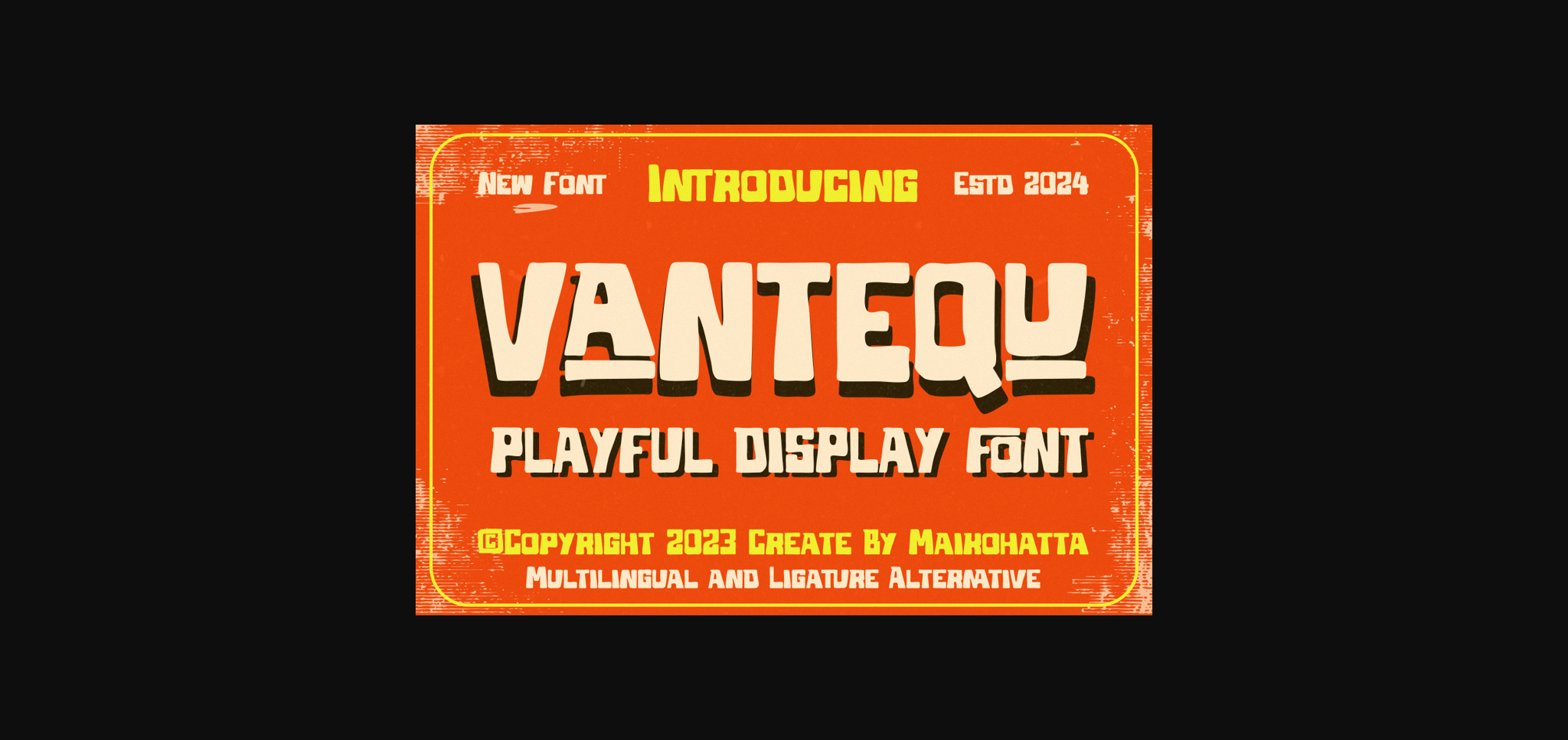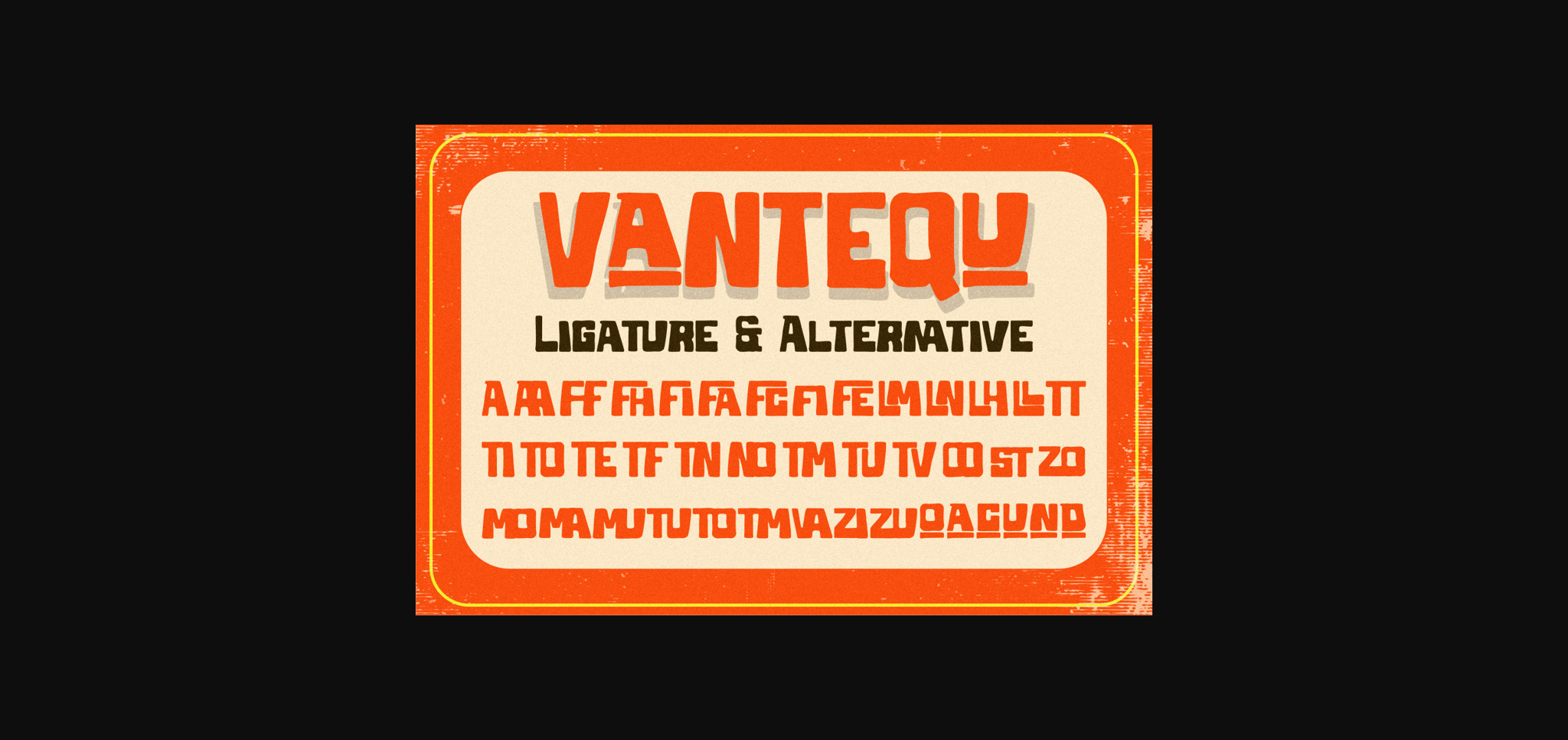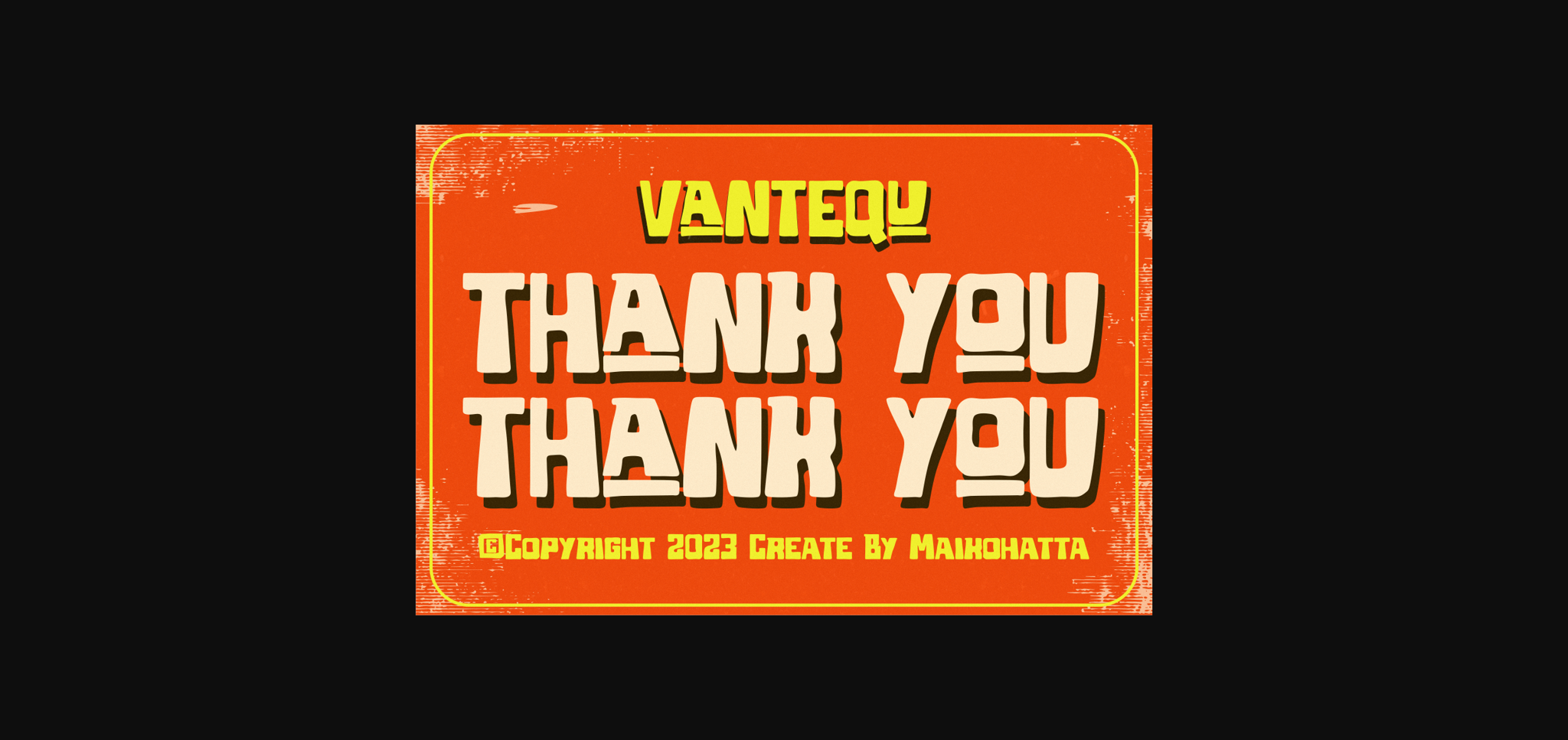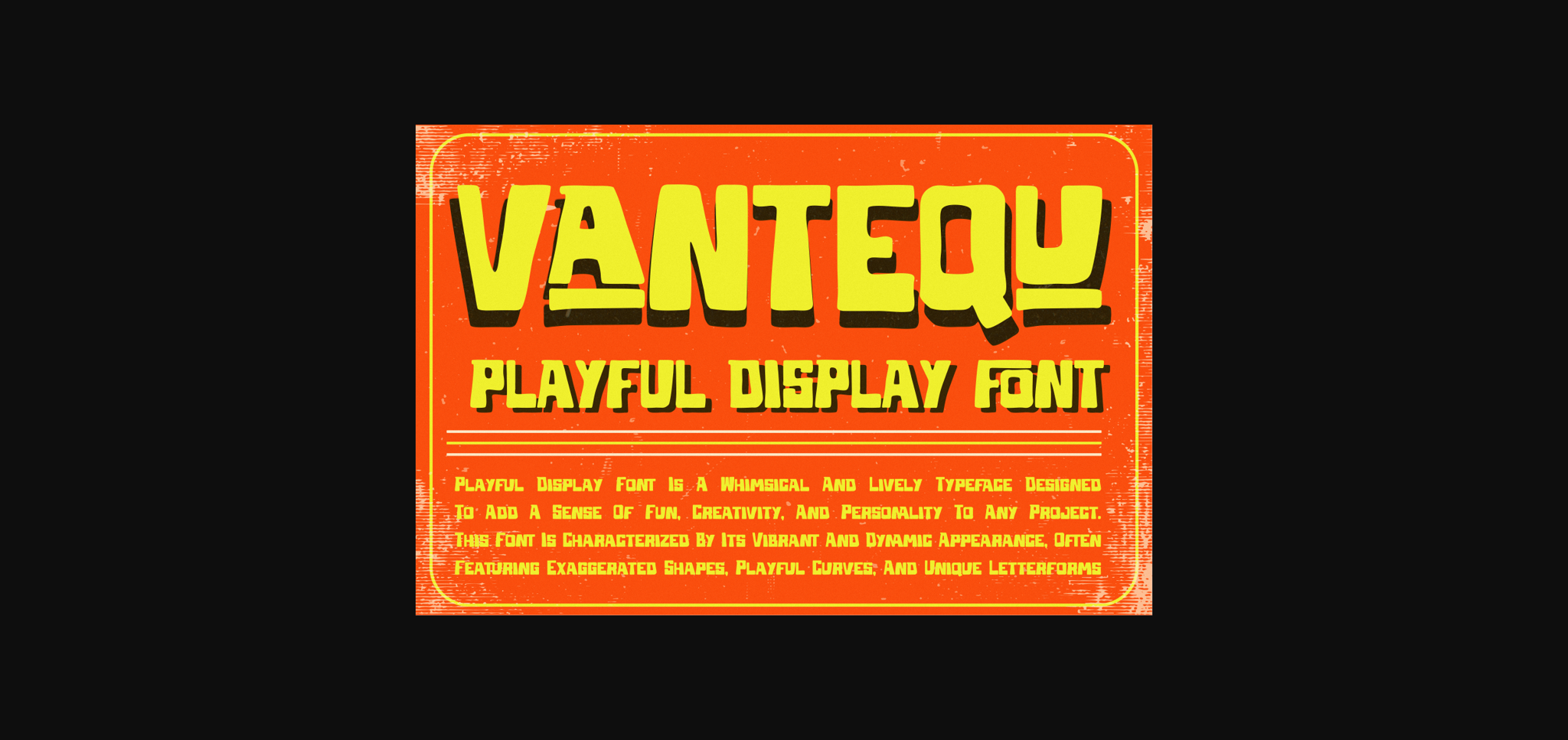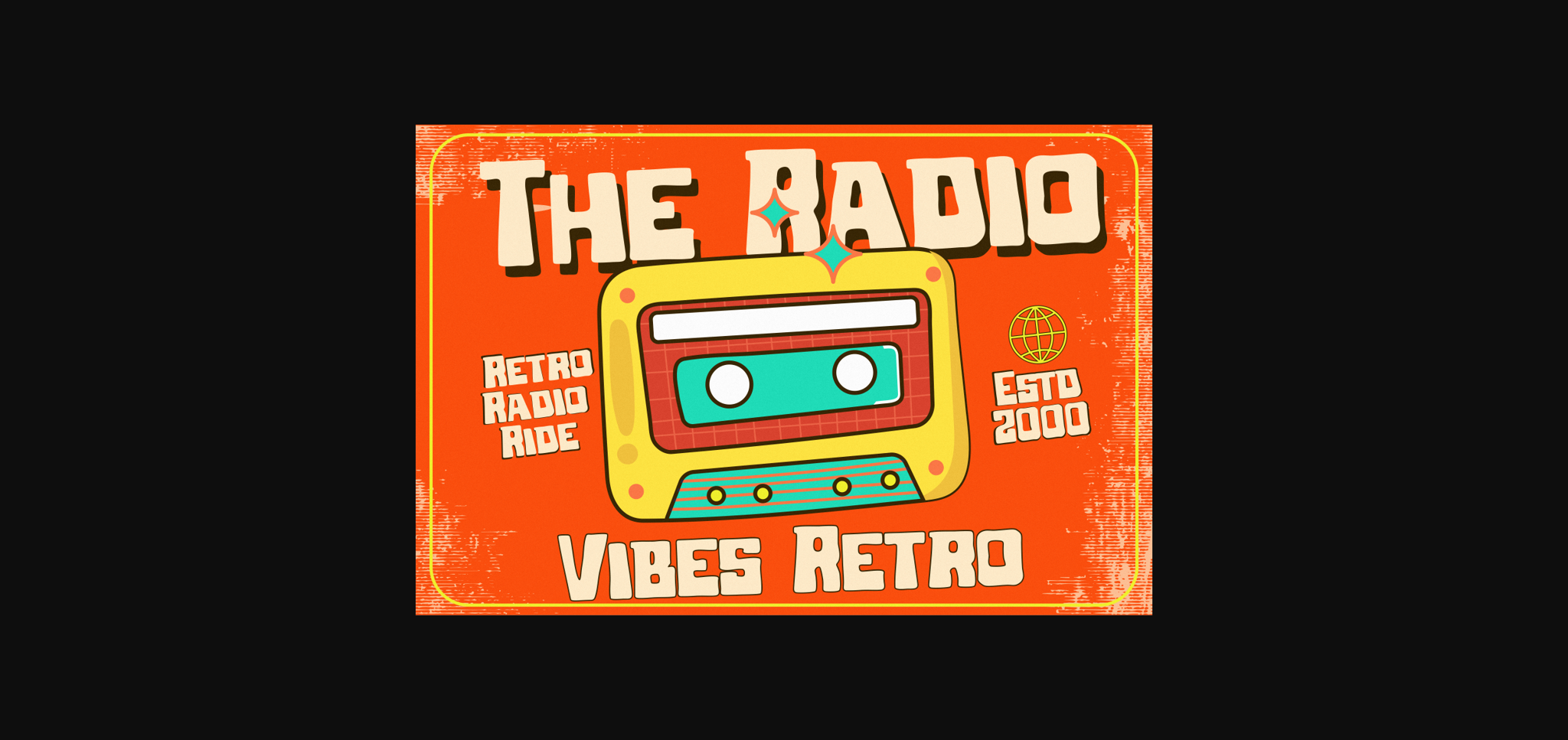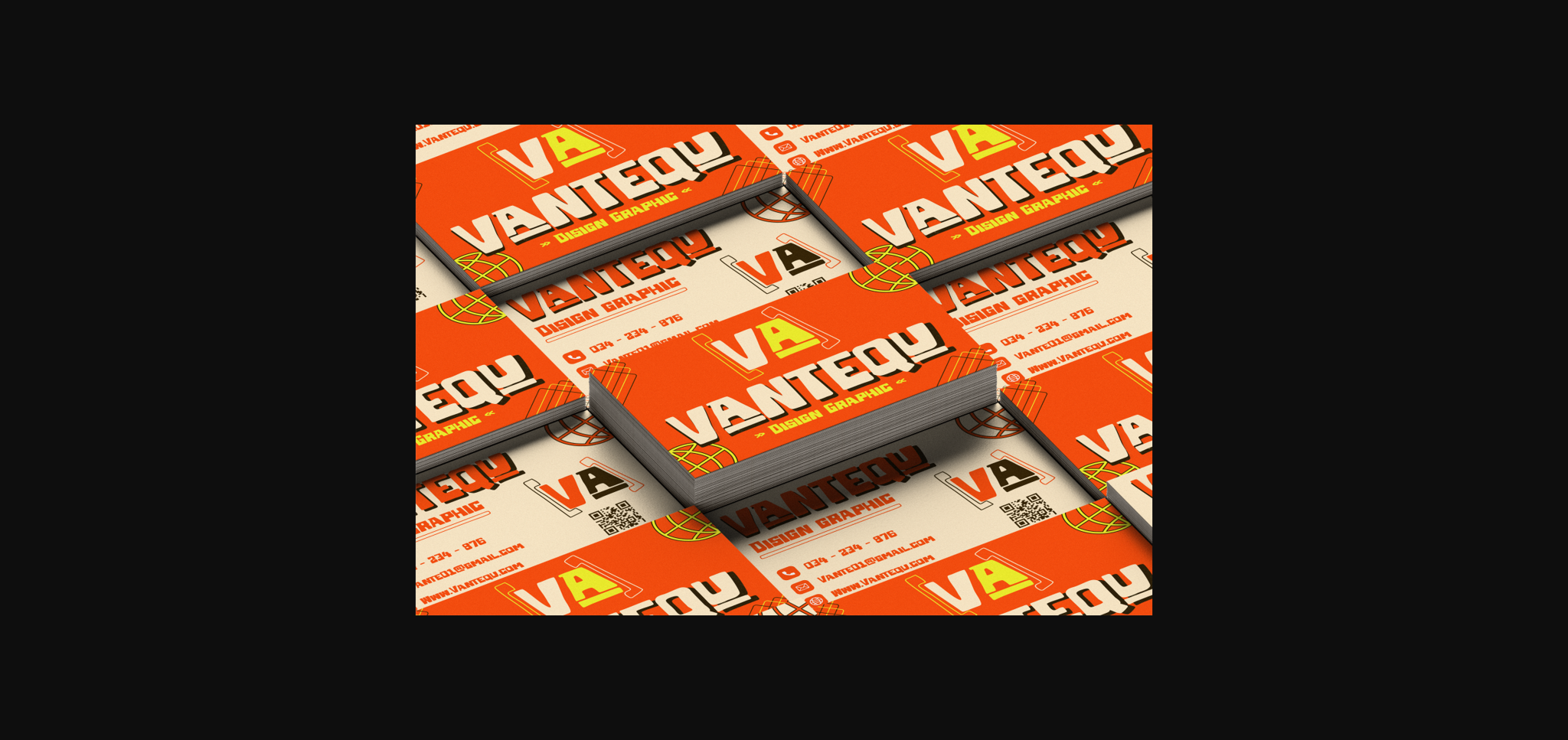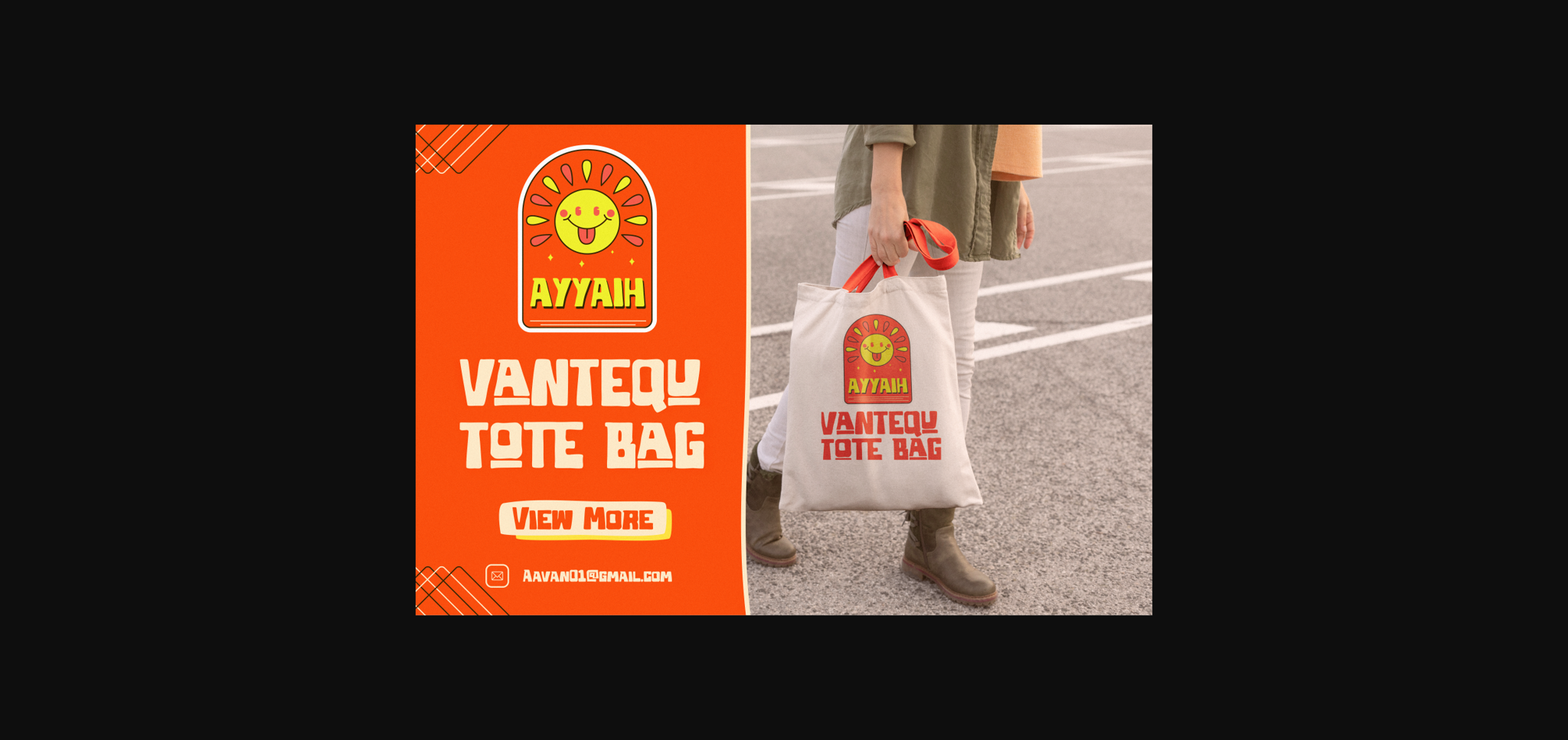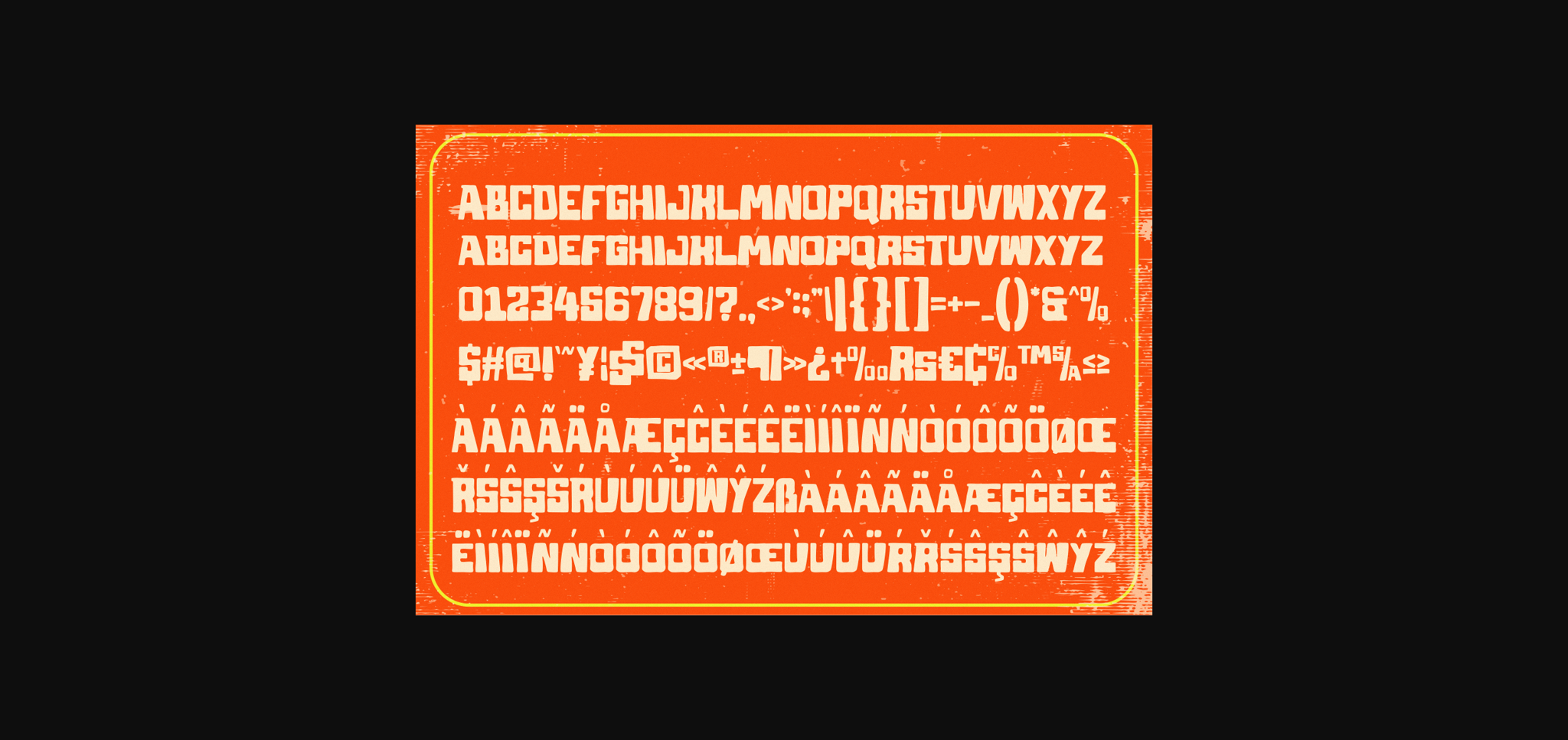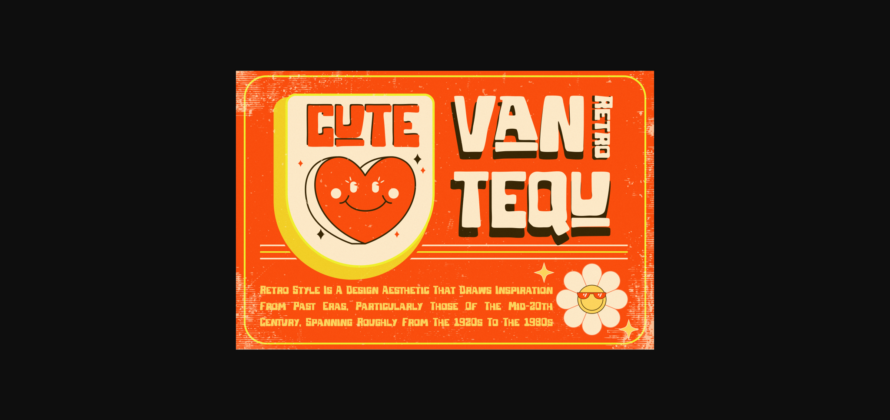
Vantequ Font
About Vantequ Font
Introducing our new product **Vantequ** – Playful Display Font
This font is characterized by reflecting joy, cheerfulness, and a light atmosphere with a handwritten style often found in comics or cartoons.
This font is perfect for projects that want to highlight elements of playfulness and fun, such as poster designs, invitation cards, comics, or promotional materials aimed at a younger audience or those looking for a fun feel.